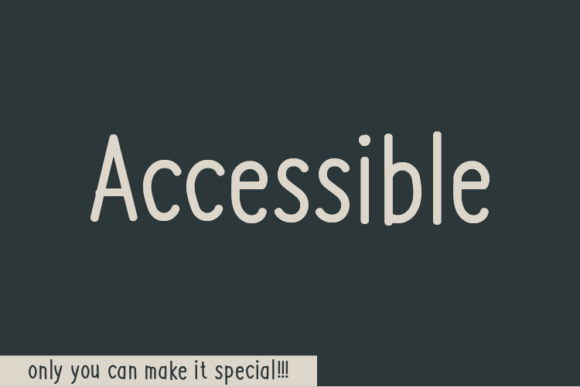
Accessible Font: The Unique and Versatile Typeface for Your Design Needs
In the world of typography, fonts play a crucial role in conveying messages, expressing emotions, and creating visual identities. With the vast array of fonts available, designers often seek unique and versatile typefaces that can elevate their designs. One such font that has gained attention in recent times is Accessible, a natural handwritten font that boasts a distinctive characteristic – it’s made without changing a single node in each character’s indentation. This feature makes Accessible a standout font, perfect for various design applications, including quotes, notes, tees, and product design.
The Story Behind Accessible Font
Accessible font is a carefully crafted typeface that embodies the essence of handwritten typography. Its creator aimed to design a font that would exude a sense of warmth, friendliness, and approachability. By maintaining the original indentation of each character, the font’s uniqueness is preserved, making it an excellent choice for designers seeking a distinctive look.
Key Features of Accessible Font
- Natural Handwritten Style: Accessible font boasts a genuine handwritten appearance, making it perfect for designs that require a personal touch.
- Unique Indentation: The font’s distinctive feature of maintaining the original indentation of each character sets it apart from other typefaces.
- Versatility: Accessible font can be used for a wide range of design applications, from quotes and notes to tees and product design.
- Ease of Reading: The font’s clear and legible design ensures that it remains easy to read, even at smaller font sizes.
Use Cases for Accessible Font
Quotes and Notes
Accessible font is an excellent choice for quotes and notes due to its natural handwritten style. It adds a personal touch to any quote or note, making it perfect for social media posts, journals, and planners.
T-Shirts and Merchandise
The font’s unique indentation and handwritten style make it an attractive choice for t-shirt and merchandise design. It can add a touch of personality to any product, making it stand out from the crowd.
Product Design
Accessible font can be used in various product design applications, such as packaging, branding, and advertising. Its versatility and legibility make it an excellent choice for creating visually appealing designs.
Benefits of Using Accessible Font
- Enhanced Visual Identity: Accessible font can help create a unique visual identity for your brand or design project.
- Improved Readability: The font’s clear and legible design ensures that your message is conveyed effectively.
- Increased Engagement: The font’s distinctive style can help grab the attention of your audience and increase engagement.
Tips for Using Accessible Font Effectively
Pair it with Other Fonts
Accessible font can be paired with other fonts to create a visually appealing combination. Experiment with different font pairings to find the perfect match.
Experiment with Colors
The font’s versatility allows it to work well with various colors. Experiment with different color schemes to find the one that best suits your design.
Use it for Emphasis
Accessible font can be used to add emphasis to specific parts of your design. Use it to draw attention to important information or to create a visual hierarchy.
In conclusion, Accessible font is a unique and versatile typeface that can elevate your designs. Its natural handwritten style, combined with its distinctive indentation, makes it perfect for various design applications. By incorporating Accessible font into your design projects, you can create visually appealing and engaging designs that convey your message effectively.